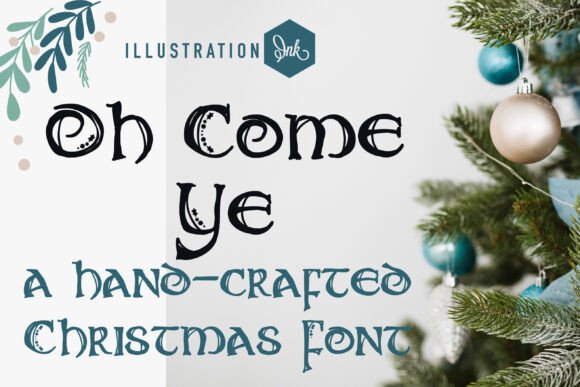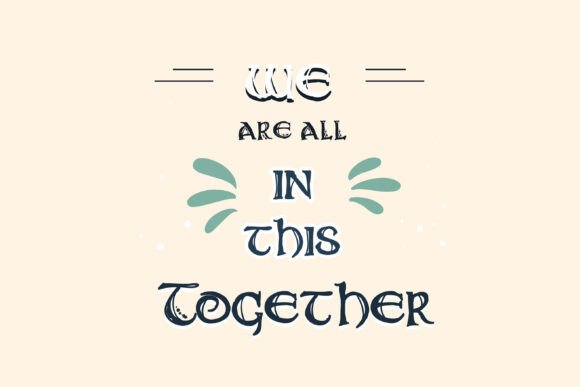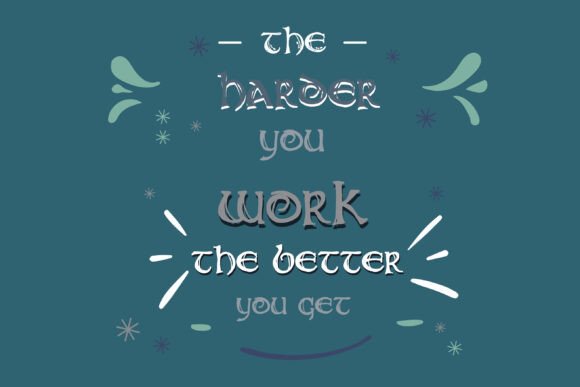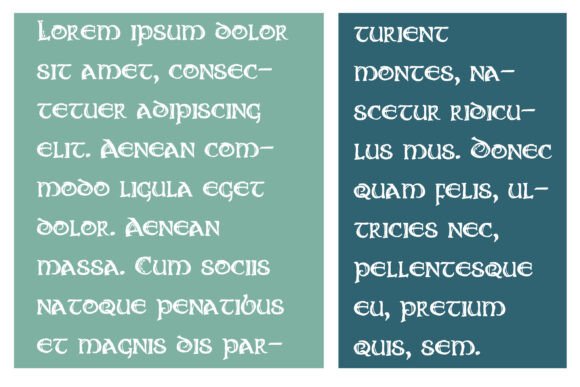
Oh Come Ye Font
About the Oh Come Ye Font
Make a bold statement with Oh Come Ye Font, a powerful and memorable font. This hand-crafted font is an old-school, Old English font with holly throughout.
Oh Come Ye Font’s strong vertical strokes and decorative elements make it ideal for headlines, short text blocks on posters, or branding applications requiring a touch of vintage charm. It would be effective for Christmas-themed projects, invitations, or packaging for artisanal products. However, its ornate style is unsuitable for body text or UI elements; the intricate details would hinder readability in extended use.
The font’s personality is undeniably festive and traditional, yet carries a touch of playful whimsy. Its strong, somewhat bold character suggests a sense of warmth and approachability, not stern formality.
Pairing it with a clean sans-serif like Montserrat for body copy would create a balanced contrast, enhancing readability while maintaining visual interest. For a more traditional feel, a classic serif like Garamond could be used; this pairing emphasizes the font’s old-world charm.
Oh Come Ye Font Usage Examples
Oh Come Ye Font Example